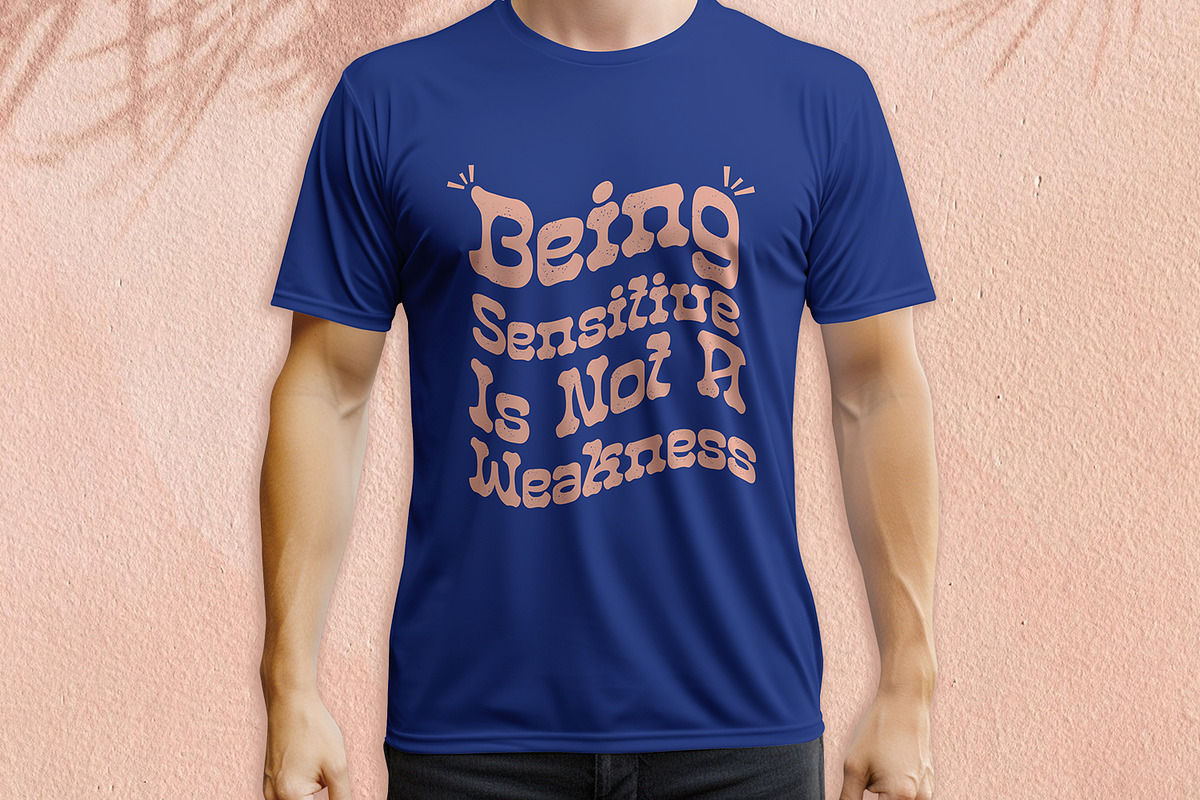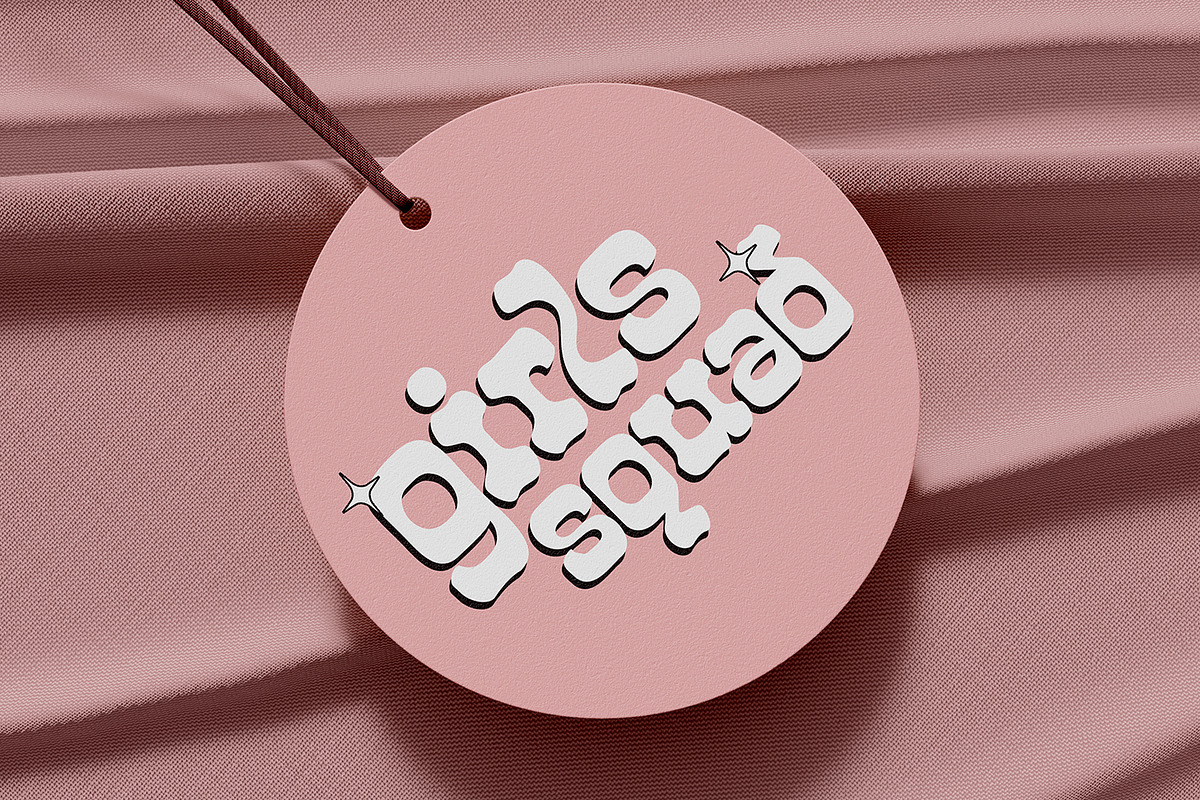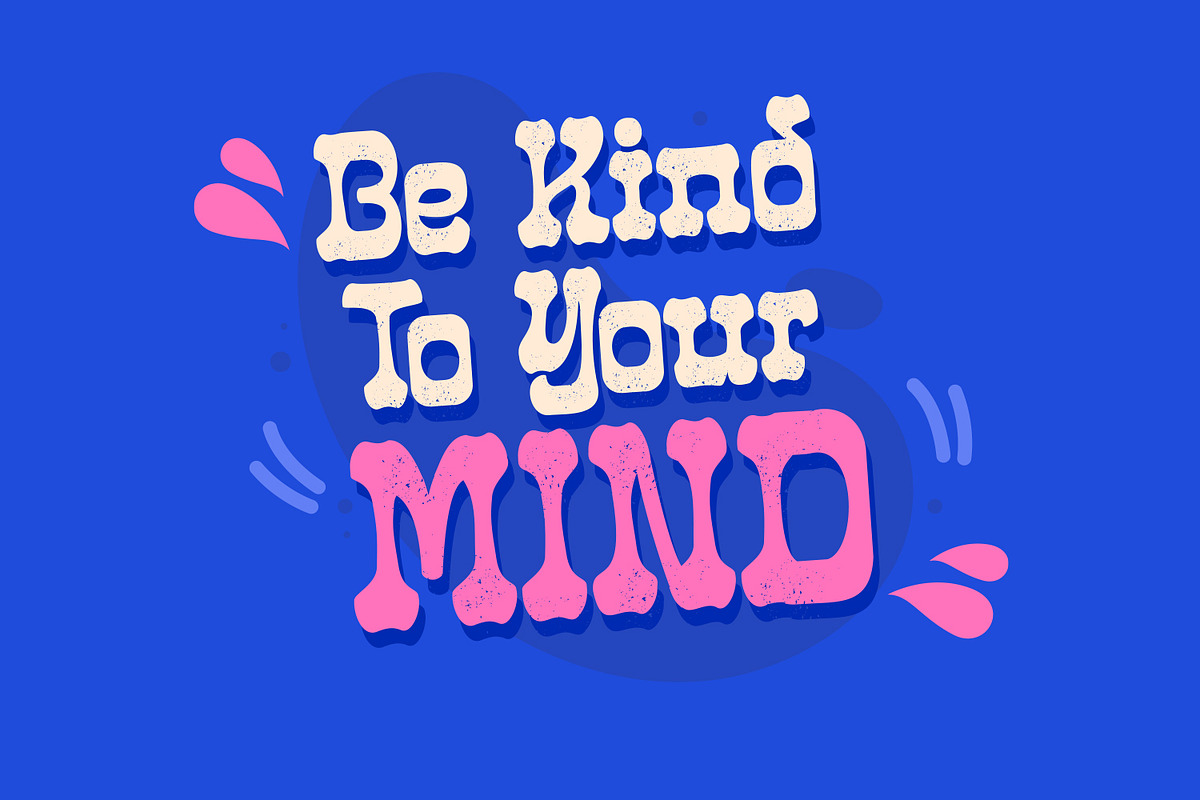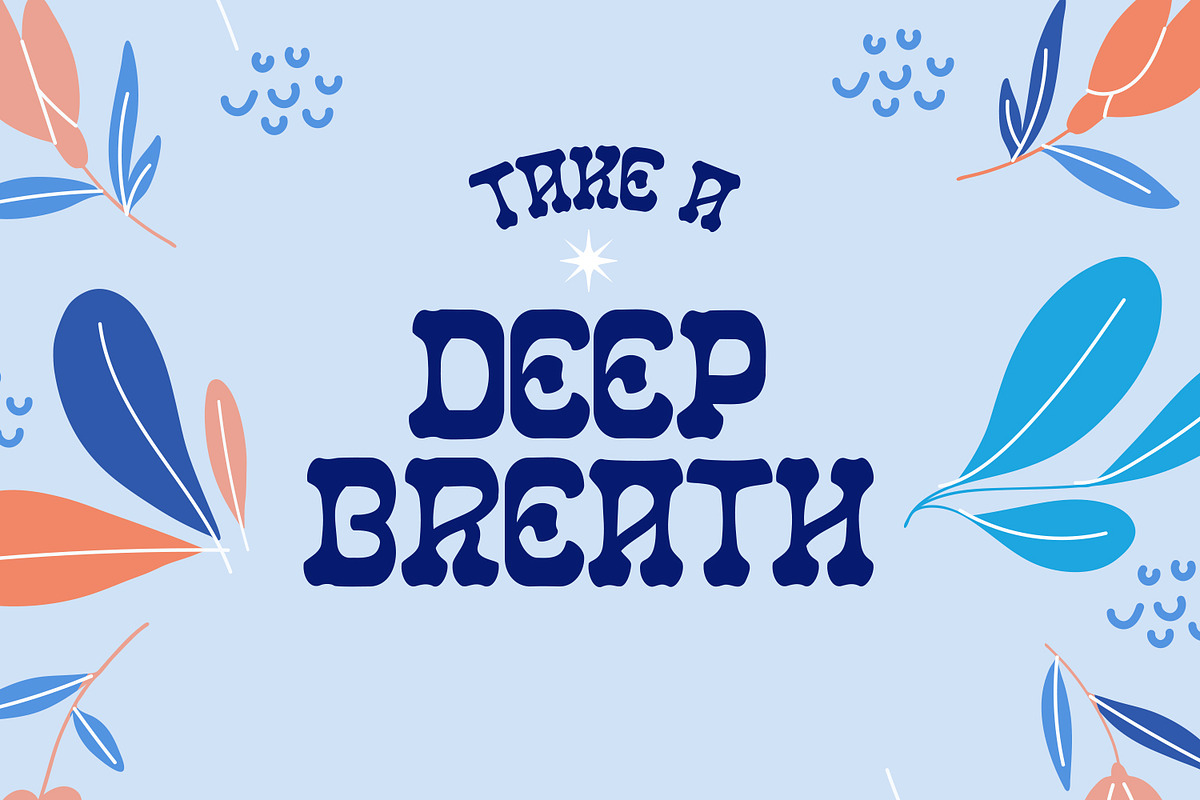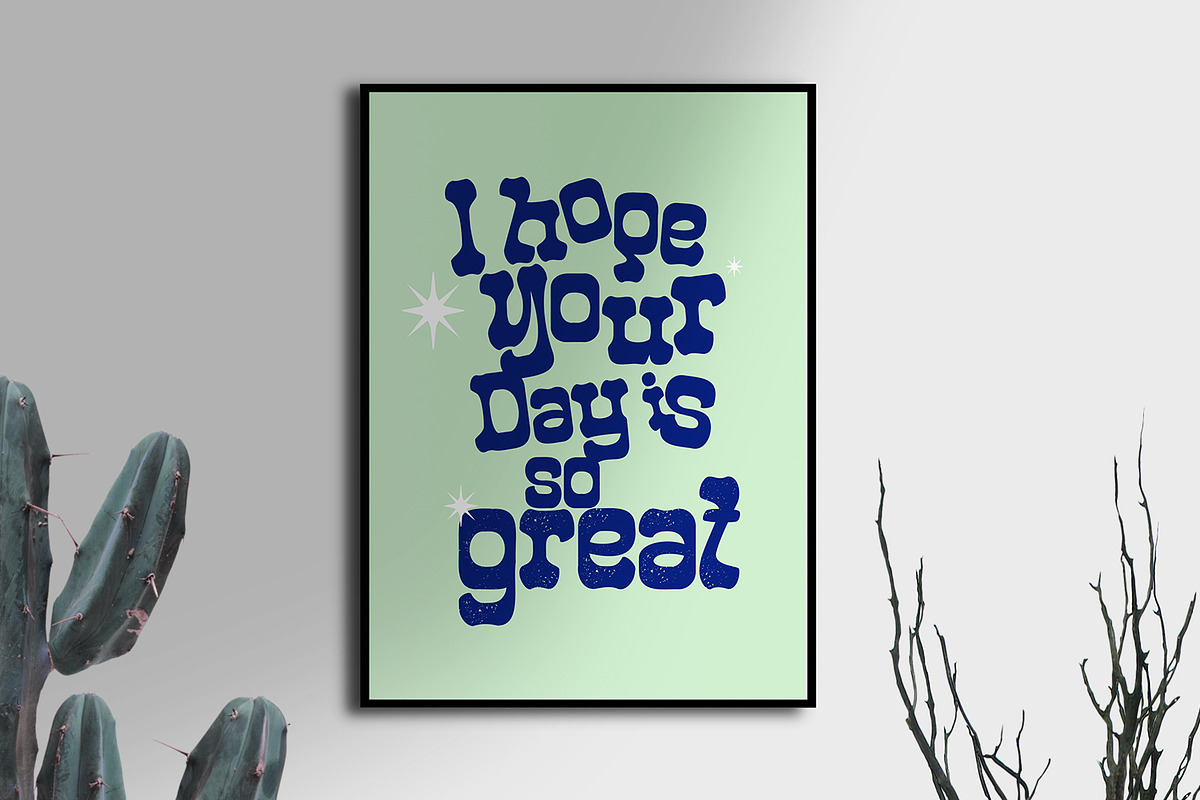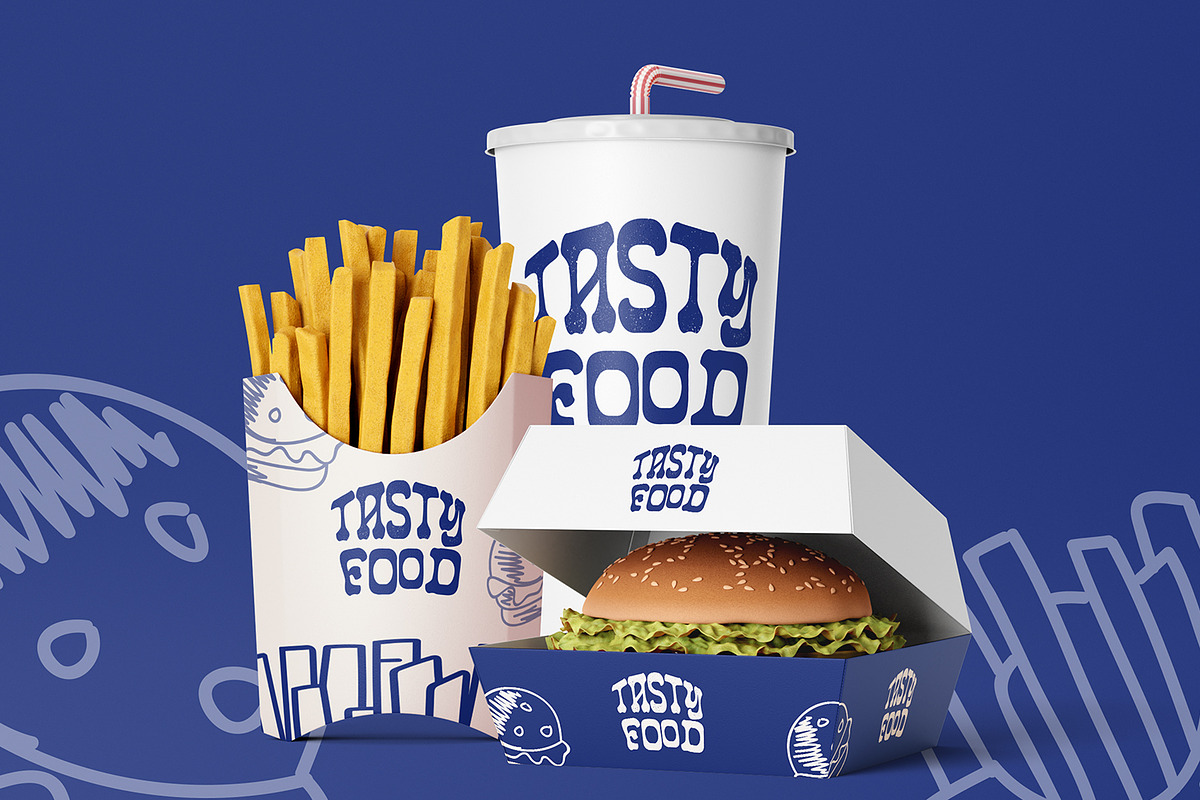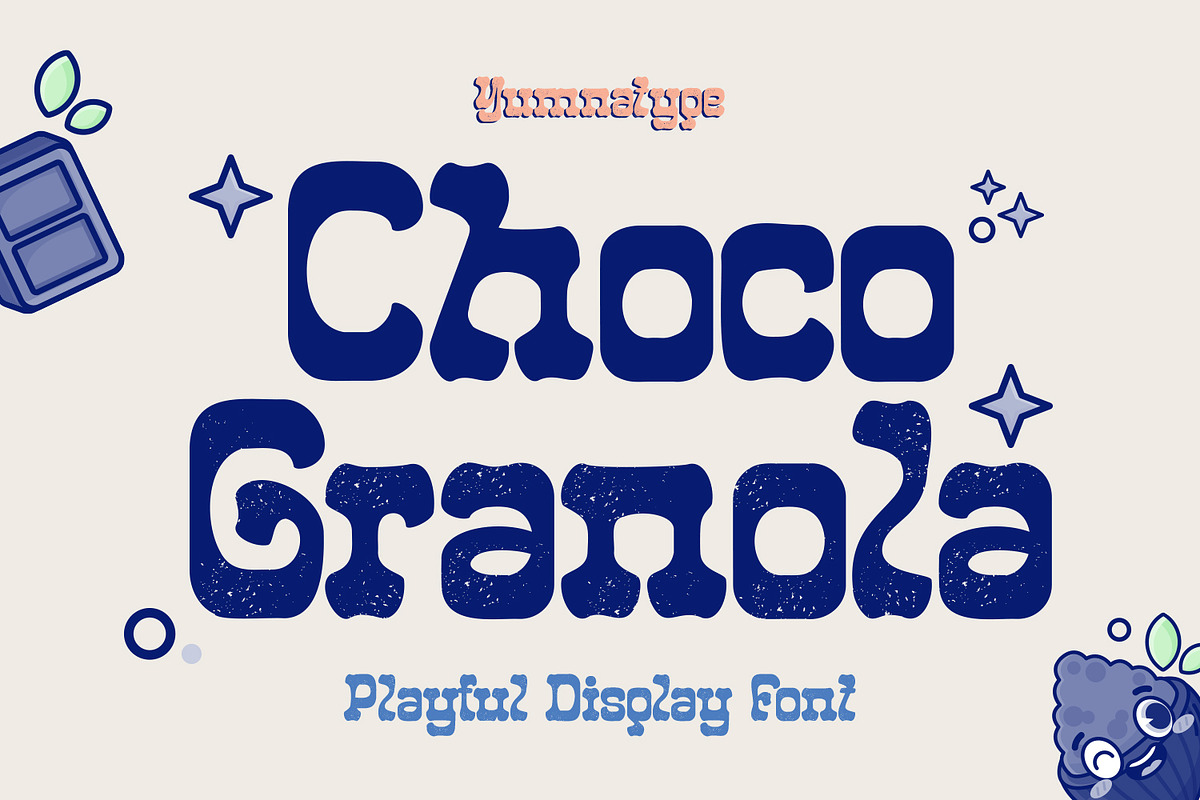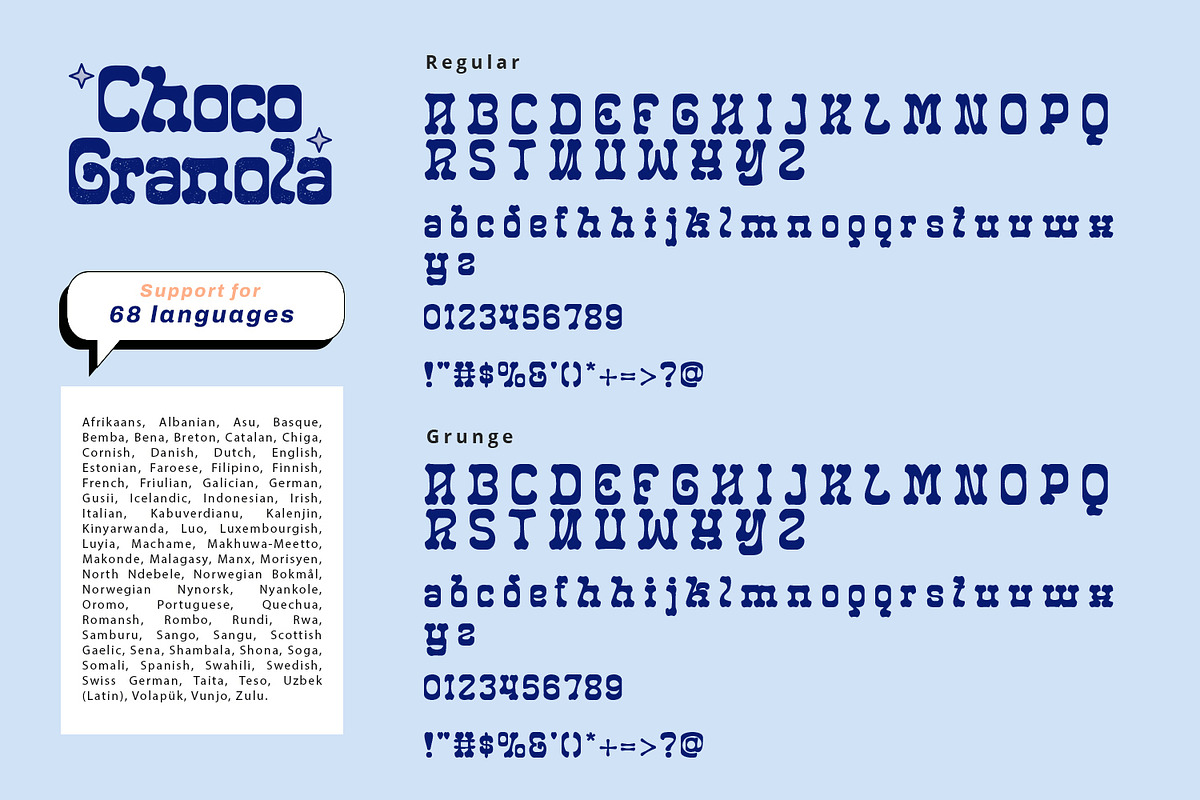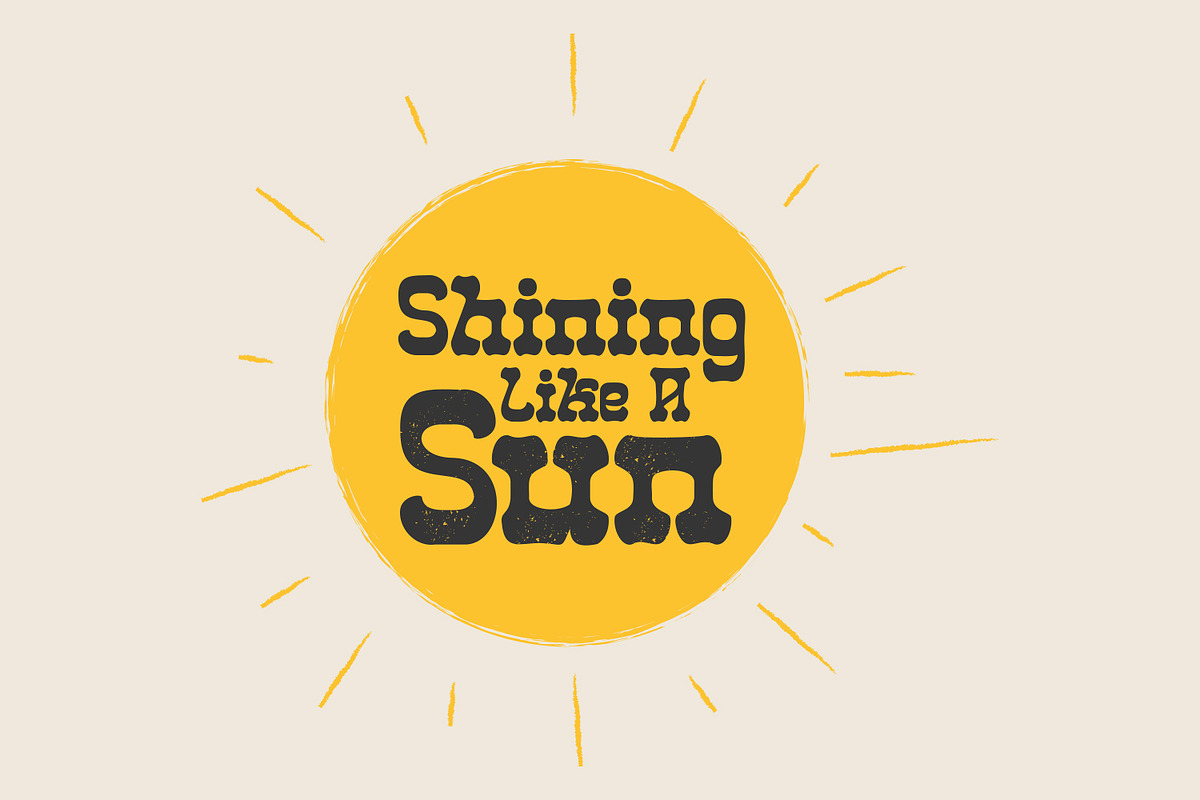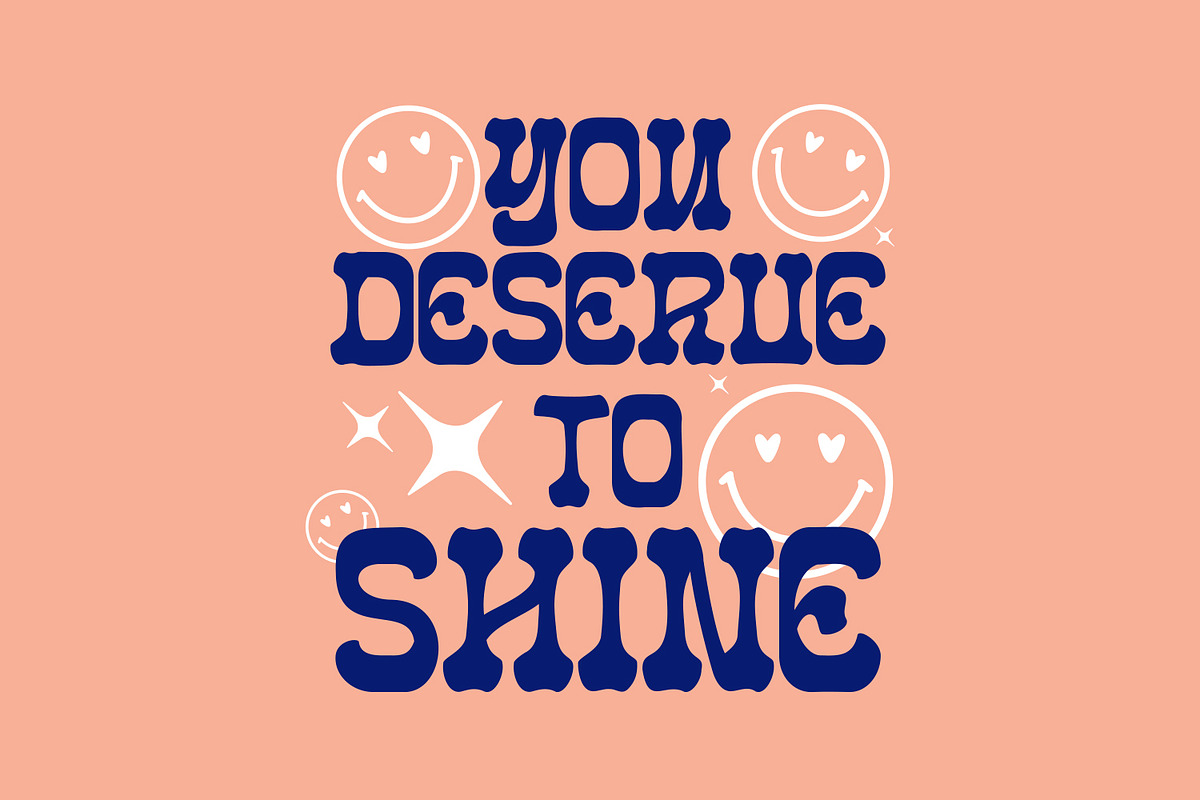
Choco Granola
Indulge in the delightful charm of Choco Granola, a playful display font that brings a sweet and whimsical touch to your designs. Each letter in Choco Granola is meticulously designed with rounded shapes that add a soft and inviting vibe to your text.
The thick weight adds a sense of solidity and presence. Additionally, the uneven outline adds an extra layer of quirkiness and character to the font, adding to its unique charm. What sets Choco Granola apart is its ability to convey a sense of joy and whimsy. In addition, enjoy the features here.
Choco Granola fits in headlines, logos, posters, flyers, branding materials, print media, editorial layouts, and many more designs. Find out more ways to use this font by taking a look at the font preview.